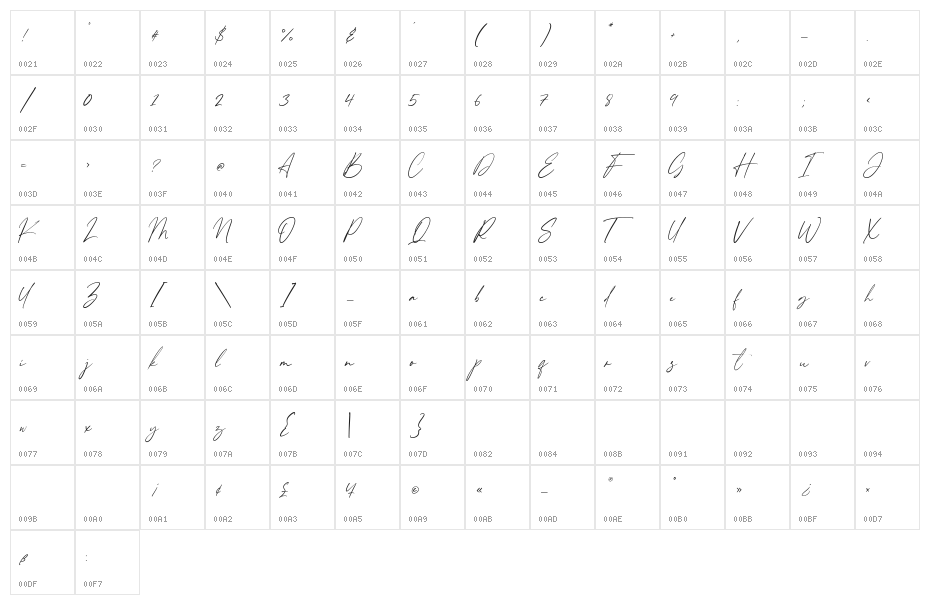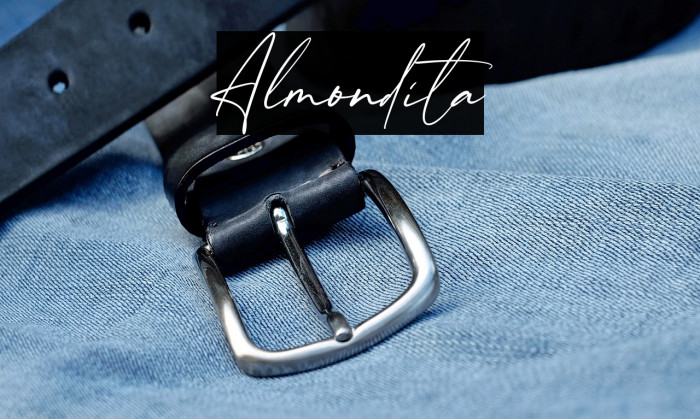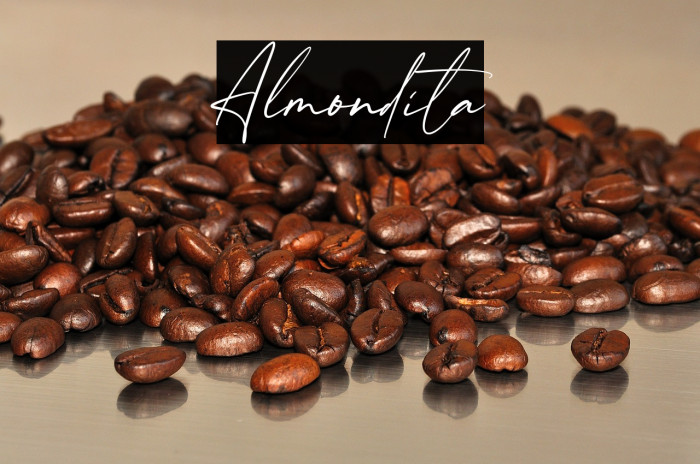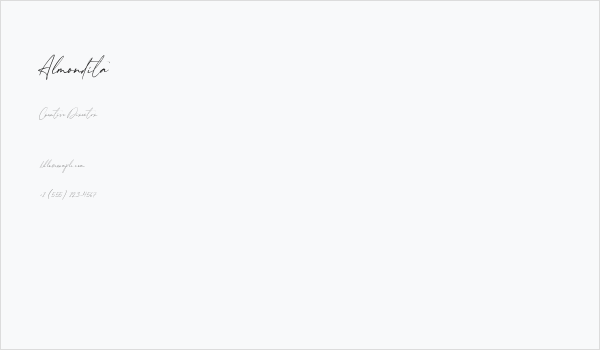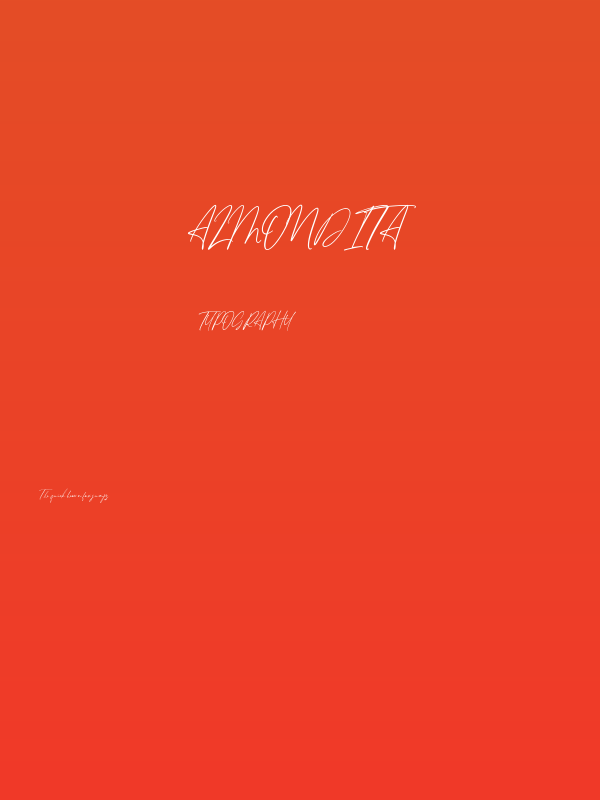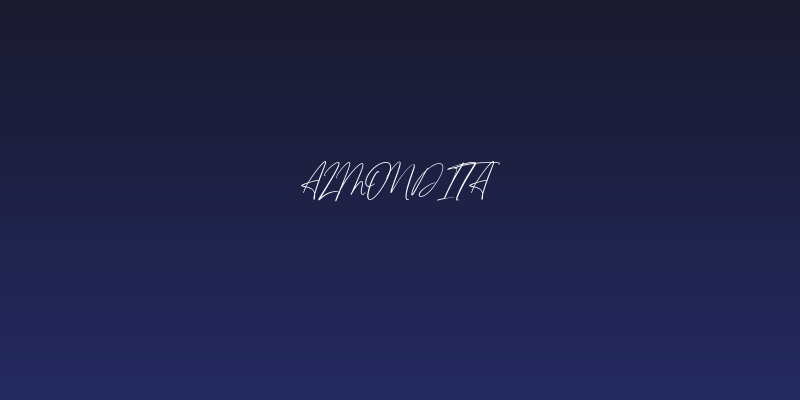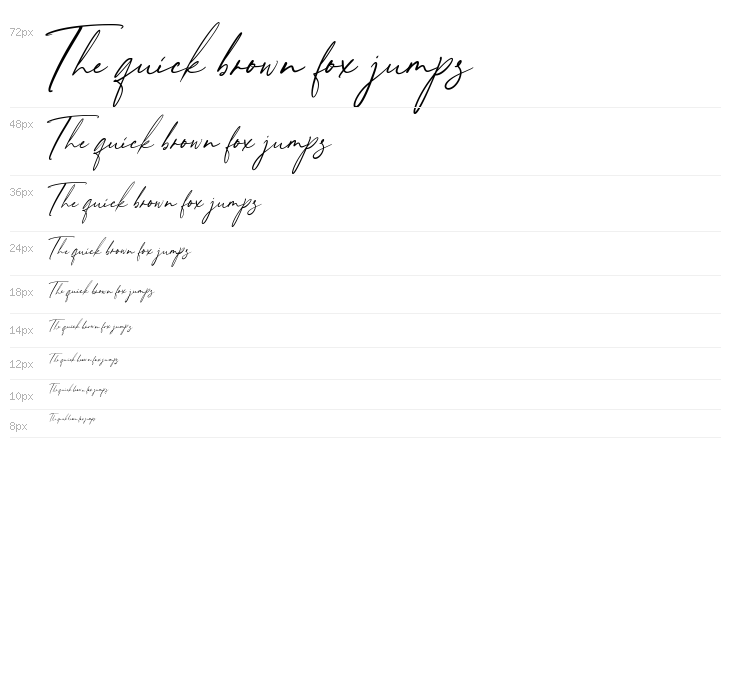
Almondita Font
Almondita Description
This font exudes a sense of elegance and fluidity, characterized by its cursive, handwritten style. The letters are connected with smooth, flowing strokes that mimic natural handwriting. The uppercase letters are bold and prominent, while the lowercase letters maintain a delicate and graceful appearance. The numerals and special characters are consistent with the overall style, adding a touch of sophistication. This font is perfect for projects that require a personal, artistic touch, such as invitations, greeting cards, or branding materials. Its unique style makes it stand out, providing a sense of individuality and charm.
| Overall Style | Elegant, Artistic |
| Proposed Projects | Ideal for invitations, greeting cards, branding, and artistic projects. |